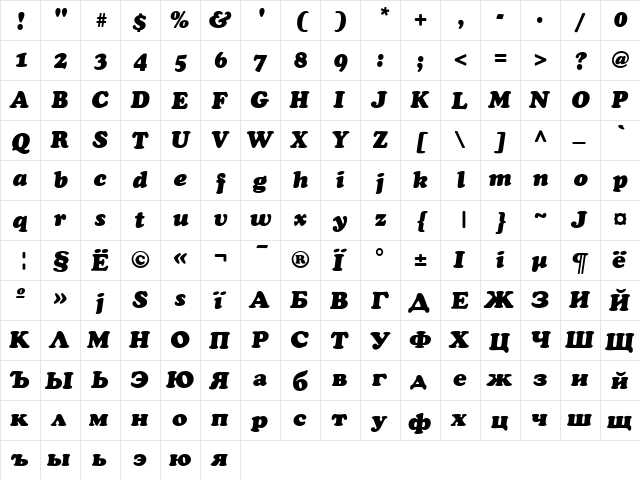
AGCooperCyr Italic
Design Context for AGCooperCyr Typeface
AGCooperCyr offers clean, dependable letterforms without strong stylistic allegiance, making it a practical choice for designers who need flexibility. The dynamic lean of this cut emphasises speed and emphasis in any layout.
Pro Tip: Use AGCooperCyr for emphasis, pull quotes, and subheadings where its slanted energy can add rhythm to the layout.